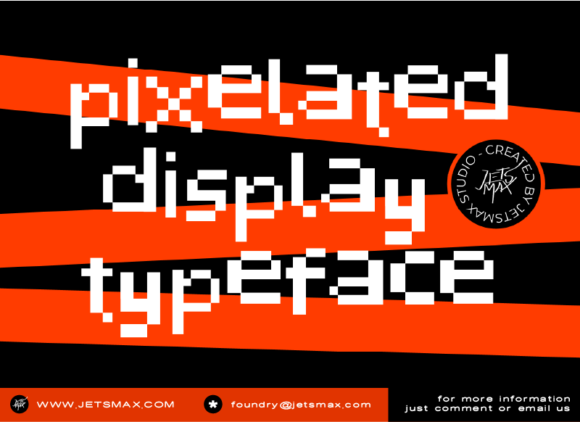
Enter the captivating realm of Pixelated Font, a display font family that exudes a distinctive techno-chic allure. Designed by the visionary studio Jetsmax, Pixelated Font captivates with its intricate geometry and futuristic aesthetic. Immerse yourself in a world of digital artistry as you unleash your creativity with this extraordinary font.
Pixelated Font is more than just a collection of letters and symbols; it's an expression of individuality and a testament to the power of digital innovation. With its sharp angles and distinctive pixelated texture, this font commands attention, whether gracing a web design, a business card, or any project that demands a touch of the extraordinary.
Unleash your imagination and explore the boundless possibilities of Pixelated Font. Let your designs radiate with a futuristic glow, captivating your audience with its cutting-edge aesthetics. From sleek logos to eye-catching headlines, Pixelated Font is your gateway to a world of digital brilliance.
Don't settle for the ordinary; embrace the extraordinary with Pixelated Font. Transform your designs into digital masterpieces, leaving a lasting impression on all who encounter your work. Let Pixelated Font be your artistic accomplice, guiding you towards a world of boundless creativity and innovation.